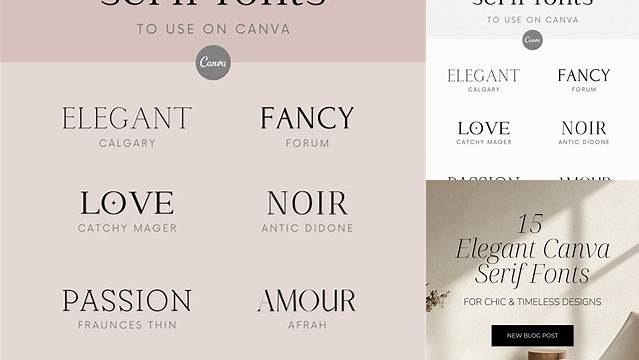
Elegant Serif Fonts On Canva: A Designer's Guide
Hey guys! Are you looking to add a touch of class and sophistication to your Canva designs? Well, you've come to the right place! We're diving deep into the world of elegant serif fonts available on Canva. These fonts are perfect for everything from wedding invitations to branding materials, giving your projects that polished, professional look. Let's explore how to find them, use them, and make the most of them in your designs.
1. Understanding Serif Fonts
Before we jump into Canva, let's quickly understand what makes a serif font a serif font. Serif fonts are characterized by small decorative strokes, or 'serifs,' at the end of each character. These little details can significantly impact the overall feel of your text. Serif fonts are often associated with tradition, authority, and elegance, making them ideal for conveying a sense of sophistication and trustworthiness. In contrast, sans-serif fonts lack these strokes and tend to appear more modern and minimalist. When choosing between serif and sans-serif, consider the message you want to send and the overall aesthetic of your design. Understanding the nuances of serif fonts will help you select the perfect elegant serif fonts for your projects on Canva.
2. Identifying Elegant Serif Fonts in Canva
Canva has a huge library of fonts, so finding the elegant serif fonts can feel like searching for a needle in a haystack. But don't worry, I'm here to help! One of the easiest ways to find them is by using Canva's font filters. Go to the text tool, click on the font dropdown, and then use the filter options to specifically search for 'serif' fonts. You can also type keywords like 'elegant,' 'classic,' or 'formal' into the search bar to narrow down your options. Pay attention to fonts that have clean lines, balanced proportions, and those little serifs that add a touch of class. Some popular elegant serif fonts to look out for include 'Lora,' 'Playfair Display,' and 'Merriweather.' Experiment with different fonts and see how they look with your design elements. With a bit of searching, you'll find the perfect elegant serif fonts to elevate your Canva projects.
3. Lora: A Timeless Choice
Lora is a well-balanced contemporary serif with roots in calligraphy. It is a versatile choice that works well for both body text and headings. Its brushed curves create a visual appeal that is both elegant and readable. In Canva, Lora can be used to add a touch of sophistication to blog titles, invitations, or even social media graphics. Pair it with a clean sans-serif font like Montserrat or Lato for a balanced design. When using Lora, pay attention to the font size and line height to ensure optimal readability. This font is especially effective when used in designs that require a classic and refined aesthetic. Lora's timeless appeal makes it a reliable choice for various design projects, ensuring your message is conveyed with elegance and clarity.
4. Playfair Display: For Headlines That Pop
Playfair Display is a transitional serif design. This font is characterized by high contrast and delicate hairlines. It’s particularly well-suited for headlines and titles, where its elegance can truly shine. While it can be used for short snippets of body text, its finer details can get lost at smaller sizes, so it's best to reserve it for larger text elements. In Canva, Playfair Display can instantly elevate the look of posters, banners, and presentations. It pairs beautifully with sans-serif fonts like Open Sans or Raleway for a modern contrast. This font is a go-to choice for designers looking to add a touch of luxury and sophistication to their work. When using Playfair Display, be mindful of the letter spacing and kerning to maintain its elegant appearance.
5. Merriweather: Readable and Refined
Merriweather is designed with readability in mind, making it an excellent choice for body text. Its slightly condensed letterforms and sturdy serifs make it easy on the eyes, even at smaller sizes. But don't let its functionality fool you – Merriweather still exudes a sense of elegance and sophistication. In Canva, Merriweather can be used for everything from website content to print materials. It pairs well with a variety of sans-serif fonts, such as Roboto or Nunito, creating a balanced and harmonious design. This font is especially useful for projects that require a professional and polished look. When using Merriweather, experiment with different font weights to add visual interest and hierarchy to your text. Its readability and refined appearance make it a reliable choice for any design project.
6. Garamond: A Classic Choice
Garamond is one of the most classic serif fonts around, and its timeless appeal makes it a fantastic choice for adding a touch of old-world elegance to your designs. It is known for its graceful letterforms and delicate serifs, embodying a sense of sophistication and tradition. In Canva, Garamond can be used to create a vintage or literary feel. Use it for book covers, invitations, or even logos to evoke a sense of history and refinement. Garamond pairs nicely with simple sans-serif fonts like Helvetica or Arial, providing a balanced contrast between the old and new. However, be cautious when using Garamond for long paragraphs online, as its delicate serifs can sometimes become less legible on screens. Stick to using it in headings or shorter text blocks to maximize its impact. Garamond truly shines when you want to convey a sense of timeless elegance and intellectual depth.
7. Times New Roman: Reliable and Recognizable
While sometimes considered a default or overused font, Times New Roman still holds its own as a reliable serif font choice. Its familiarity lends it a sense of trustworthiness and clarity, making it suitable for various applications. In Canva, Times New Roman can be effectively used for documents, reports, and presentations where readability is paramount. Its clean and straightforward design ensures that your message comes across clearly and concisely. Although it might not be the most stylish or elegant serif font choice, it’s a safe bet when you need something that is universally recognized and easy to read. Pair it with a bolder sans-serif font like Montserrat or Bebas Neue to create visual interest and balance. Remember that while Times New Roman might not be the most exciting choice, it is a dependable option for projects that require a no-fuss, professional appearance.
8. Bodoni: Bold and Dramatic
Bodoni is a striking serif font known for its high contrast between thick and thin strokes. This dramatic contrast gives it a bold and elegant appearance, making it perfect for creating eye-catching headlines and titles. In Canva, Bodoni can add a touch of glamour and sophistication to posters, magazine layouts, and branding materials. However, it’s best used sparingly, as its strong personality can overwhelm smaller text blocks. Pair it with a simpler, more neutral sans-serif font like Open Sans or Lato to balance out its boldness. Bodoni is especially effective when used in designs that need to make a strong visual impact, conveying a sense of luxury and refinement. Keep in mind that due to its high contrast, it may not be the most readable option for long paragraphs, so reserve it for headings and short, impactful phrases.
9. Using Serif Fonts for Branding
Serif fonts can be a powerful tool for branding, as they evoke feelings of tradition, reliability, and sophistication. Choosing the right elegant serif font for your brand can help communicate your values and create a lasting impression on your audience. If your brand wants to project an image of authority, trustworthiness, or luxury, a serif font is an excellent choice. Consider fonts like Garamond or Bodoni for high-end brands, or Lora or Merriweather for brands that want to balance elegance with approachability. In Canva, experiment with different serif fonts and see how they look with your logo, color palette, and other branding elements. Make sure the font you choose is legible and scalable across different platforms and sizes. Remember, your font is part of your brand identity, so choose wisely!
10. Serif Fonts for Invitations
When designing invitations, elegant serif fonts are often the go-to choice for conveying a sense of formality and sophistication. Whether you’re creating wedding invitations, party invitations, or formal event announcements, a well-chosen serif font can set the tone and create a lasting impression. Fonts like Playfair Display, Garamond, or Lora are perfect for adding a touch of elegance and romance to your invitations. In Canva, experiment with different font combinations and layouts to create a unique and memorable design. Pay attention to the font size, line height, and letter spacing to ensure readability. Don't be afraid to mix and match serif fonts with sans-serif fonts to add visual interest and balance. Remember, your invitation is the first glimpse your guests will have of your event, so make it count!
11. Pairing Serif Fonts with Sans-Serif Fonts
One of the best ways to create visually appealing and balanced designs is by pairing serif fonts with sans-serif fonts. This combination can add contrast and visual interest, making your designs more dynamic and engaging. When pairing fonts, it’s important to choose fonts that complement each other rather than compete. A good rule of thumb is to pair a more elegant serif font with a simpler, more neutral sans-serif font. For example, you could pair Playfair Display with Open Sans, or Lora with Montserrat. In Canva, experiment with different font combinations and see what works best for your design. Use the serif font for headings and titles and the sans-serif font for body text to create a clear visual hierarchy. Remember, the goal is to create a harmonious and balanced design that is both visually appealing and easy to read.
12. Adjusting Font Size and Spacing
Even the most elegant serif fonts can look awkward if the font size and spacing aren't properly adjusted. Font size affects readability, while spacing impacts the overall visual appeal of your design. In Canva, you can easily adjust the font size, line height, and letter spacing to achieve the desired effect. Make sure your font size is large enough to be easily read, especially for body text. Adjust the line height to create enough space between lines, preventing the text from looking cramped. Experiment with letter spacing to add more airiness to your design, especially when using serif fonts in headings or titles. Pay attention to kerning, which is the space between individual letters, to ensure a polished and professional look. Proper font size and spacing can make a huge difference in the overall impact of your design, so take the time to fine-tune these settings.
13. Using Serif Fonts for Logos
Serif fonts can be a great choice for logos, especially if you want to convey a sense of tradition, authority, or sophistication. A well-chosen serif font can help your logo stand out and create a lasting impression on your audience. When designing a logo with a serif font, it’s important to choose a font that is legible and scalable. Avoid fonts with overly intricate details, as they may not reproduce well at smaller sizes. In Canva, experiment with different serif fonts and see how they look with your brand name and other logo elements. Consider the overall aesthetic of your brand and choose a font that aligns with your values. A classic font like Garamond can convey a sense of timeless elegance, while a bolder font like Bodoni can project a more modern and impactful image. Remember, your logo is the face of your brand, so choose a font that represents you well.
14. Combining Serif Fonts with Images
The way you combine elegant serif fonts with images can greatly affect the overall look and feel of your design. The right combination can create a harmonious and visually appealing composition, while the wrong combination can lead to a cluttered and disjointed design. When pairing serif fonts with images, consider the style and tone of both elements. If you’re using a classic serif font, you might want to pair it with vintage or traditional images. If you’re using a more modern serif font, you can pair it with contemporary or minimalist images. In Canva, experiment with different image and font combinations and see what works best for your design. Pay attention to the color palette, composition, and overall balance of your design. Use images to enhance the elegance of your serif fonts, and vice versa.
15. Serif Fonts in Print vs. Digital
One important thing to consider when using elegant serif fonts is how they will look in print versus digital formats. Some serif fonts that look great in print may not be as legible on screens, and vice versa. In general, fonts with finer details and thinner strokes tend to work better in print, while fonts with bolder strokes and simpler designs are more suitable for digital use. When designing for print, you can use a wider variety of serif fonts, as the higher resolution allows for greater detail and clarity. However, when designing for digital, it’s important to choose fonts that are optimized for screen readability. In Canva, test your serif fonts in both print and digital formats to ensure they look good in all contexts. Pay attention to the font size, line height, and letter spacing, and adjust as needed to optimize readability.
16. The Psychology of Serif Fonts
Fonts aren't just about aesthetics; they also carry psychological weight. Serif fonts often evoke feelings of trust, tradition, and authority. This is why you see them so often in established institutions, newspapers, and legal documents. When you choose an elegant serif font, you're subtly communicating these qualities to your audience. Think about the message you want to send. If you're aiming for credibility and respect, a serif font can be a powerful tool. However, if you want to appear modern and edgy, a sans-serif might be a better fit. Canva offers a range of options, so consider the psychological impact of your font choice.
17. Popular Serif Font Combinations on Canva
Finding the perfect elegant serif font is only half the battle. Knowing how to combine them effectively is crucial. Canva makes it easy to experiment with different font pairings. One popular combination is Playfair Display for headings with Montserrat for body text. This creates a striking contrast between the elegant, attention-grabbing headline and the clean, readable body. Another favorite is Lora paired with Lato. Lora's sophisticated serifs blend beautifully with Lato's simplicity. Don't be afraid to explore and find your own unique combinations! Canva's drag-and-drop interface makes it simple to try different pairings until you find the perfect match for your design.
18. Making Serif Fonts Stand Out
Even the most elegant serif font can get lost if it's not used effectively. One way to make your serif fonts stand out is by using contrast. Pair a bold serif font with a delicate sans-serif, or vice versa. Another technique is to play with size and scale. Use a large, eye-catching serif font for headlines and smaller fonts for body text. Color is another powerful tool. Choose colors that complement your font and create visual interest. Canva offers a wide range of customization options, so experiment with different techniques until you find what works best for your design. Remember, the goal is to make your serif fonts shine!
19. Serif Fonts for Different Industries
The perfect elegant serif font isn't a one-size-fits-all solution. Different industries call for different aesthetics. For example, a law firm might choose a classic, authoritative serif font like Garamond to convey trust and expertise. A luxury brand might opt for a more modern and sophisticated serif font like Bodoni to exude elegance and exclusivity. A creative agency might use a more playful serif font like Playfair Display to showcase their creativity and innovation. Canva allows you to explore a wide range of serif fonts, so consider your industry and target audience when making your choice.
20. The Future of Serif Fonts in Design
While serif fonts might seem traditional, they're far from outdated. In fact, they're experiencing a resurgence in modern design. Designers are finding new and creative ways to use serif fonts to create unique and engaging experiences. From bold and experimental typography to subtle and sophisticated layouts, serif fonts are proving their versatility and adaptability. Canva continues to add new and innovative serif fonts to its library, ensuring that designers have access to the latest and greatest tools. The future of serif fonts is bright, and they will continue to play a vital role in the world of design.
21. Mastering Kerning with Serif Fonts
Kerning, the adjustment of space between individual letters, is especially crucial when working with elegant serif fonts. Inconsistent kerning can disrupt the flow and readability of your text, making it look unprofessional. Serif fonts, with their intricate details, are particularly sensitive to kerning issues. Canva offers basic kerning adjustments, allowing you to fine-tune the spacing between letters. Pay close attention to letter combinations that often require kerning adjustments, such as 'AV', 'WA', and 'To'. By mastering kerning, you can ensure that your serif fonts look polished and professional in your Canva designs.
22. Exploring Different Weights of Serif Fonts
Most elegant serif fonts come in a variety of weights, from light to bold. Experimenting with different weights can add visual interest and hierarchy to your designs. Light weights can create a delicate and sophisticated feel, while bold weights can add emphasis and impact. In Canva, you can easily adjust the weight of your serif fonts using the font options. Use different weights to distinguish headings from body text, or to highlight important keywords. By understanding and utilizing the different weights of serif fonts, you can create more dynamic and engaging designs.
23. Creating a Mood Board with Serif Fonts
Before diving into your Canva design, consider creating a mood board to help you visualize your aesthetic. Include examples of elegant serif fonts that resonate with the desired mood and style. This will serve as a visual guide throughout your design process, ensuring that your font choices align with your overall vision. Canva allows you to easily create mood boards by uploading images and text examples. By creating a mood board with serif fonts, you can streamline your design process and achieve a cohesive and visually appealing result.
24. Serif Fonts and Accessibility
When using elegant serif fonts, it's important to consider accessibility. While some serif fonts can be visually stunning, they may not be the most legible for users with visual impairments. Choose serif fonts with clear and distinct letterforms, and avoid fonts with overly intricate details or thin strokes. Ensure that your font size is large enough to be easily read, and provide sufficient contrast between the text and background. Canva offers accessibility tools that can help you evaluate the readability of your designs. By prioritizing accessibility, you can ensure that your designs are inclusive and enjoyable for all users.
25. Monogram Design with Serif Fonts
Serif fonts are particularly well-suited for monogram design. Their classic and elegant letterforms can add a touch of sophistication to personal or brand monograms. Choose a serif font that reflects the desired style and aesthetic. For a traditional monogram, consider fonts like Garamond or Times New Roman. For a more modern monogram, explore fonts like Playfair Display or Lora. Canva offers a variety of monogram templates that you can customize with your chosen serif font. By using serif fonts for monogram design, you can create a timeless and elegant symbol.
26. Serif Fonts in Editorial Design
Editorial design, such as magazines and books, often relies on elegant serif fonts for their readability and classic appeal. Serif fonts are particularly well-suited for long blocks of text, as their serifs help guide the eye and improve reading comprehension. Choose a serif font that is both legible and visually appealing. Fonts like Merriweather, Lora, and Georgia are popular choices for editorial design. Canva offers a variety of editorial templates that you can customize with your chosen serif font. By using serif fonts effectively in editorial design, you can create a visually engaging and readable publication.
27. Adding Texture to Serif Fonts
Adding texture to elegant serif fonts can create a unique and eye-catching effect. This can be achieved through various techniques, such as adding a subtle grunge overlay or incorporating a vintage paper texture. Canva allows you to easily add textures to your fonts using its image editing tools. Experiment with different textures to see what works best for your design. Keep in mind that too much texture can detract from the readability of your font, so use it sparingly. By adding texture to serif fonts, you can create a more visually interesting and dynamic design.
28. Serif Fonts for Certificates and Awards
When designing certificates and awards, elegant serif fonts are often the go-to choice for conveying a sense of formality and prestige. Choose a serif font that is both legible and sophisticated. Fonts like Garamond, Times New Roman, and Playfair Display are popular choices for certificates and awards. In Canva, you can easily customize certificate and award templates with your chosen serif font. Pay attention to the font size, line height, and letter spacing to ensure readability. By using serif fonts effectively for certificates and awards, you can create a meaningful and impressive document.
29. Creating Depth with Serif Fonts and Shadows
Adding shadows to elegant serif fonts can create a sense of depth and dimension, making them stand out from the background. This technique can be particularly effective for headings and titles. Canva allows you to easily add shadows to your fonts using its effects tools. Experiment with different shadow styles, such as drop shadows, inner shadows, and raised shadows. Adjust the shadow's opacity, blur, and distance to achieve the desired effect. By adding shadows to serif fonts, you can create a more visually dynamic and engaging design.
30. The Importance of Licensing for Serif Fonts on Canva
When using elegant serif fonts on Canva, it's important to understand the licensing terms. Canva offers a variety of free and paid fonts, each with its own licensing restrictions. Make sure you are aware of the allowed uses for each font before incorporating it into your designs. Some fonts may only be used for personal projects, while others may be used for commercial purposes. Canva provides information on the licensing terms for each font, so be sure to read the fine print. By understanding the licensing terms for serif fonts on Canva, you can avoid copyright infringement and ensure that you are using the fonts legally.